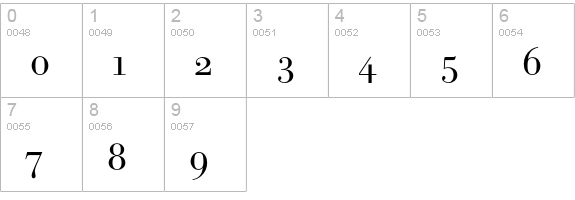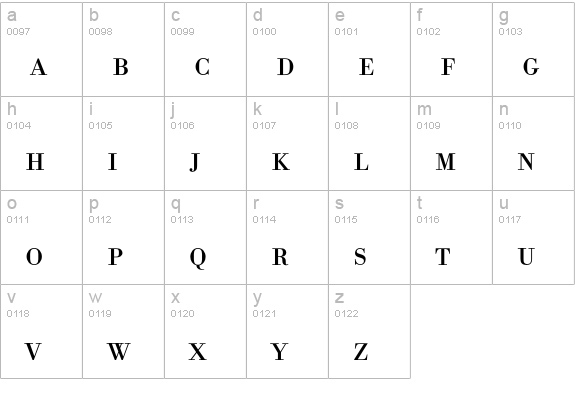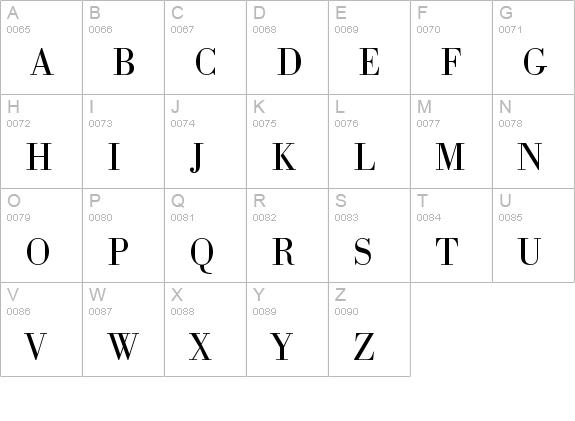
BodoniSCEF-Light Font Details
BodoniSCEF-Light is a refined, elegant variant in the BodoniSCEF typeface family \xE2\x80\x94 well suited to elegant body text, refined sub-headings, and luxury branding.
BodoniSCEF-Light font is a modern and elegant typeface that exudes sophistication and style. Its sleek lines and classic design make it perfect for a wide range of projects, from branding to editorial layouts. The light weight of this font adds a touch of delicacy and refinement, making it ideal for creating a sense of elegance and sophistication in your designs. What makes BodoniSCEF-Light font even more appealing is that it is completely free to download. You can easily access this beautiful typeface at FontsMarket.com, where you can unleash your creativity and elevate your projects with this exquisite font. Whether you are designing a website, creating a logo, or working on a print publication, BodoniSCEF-Light font is a versatile choice that will bring a touch of class to your designs. Download it today and start creating stunning visuals that stand out from the crowd.